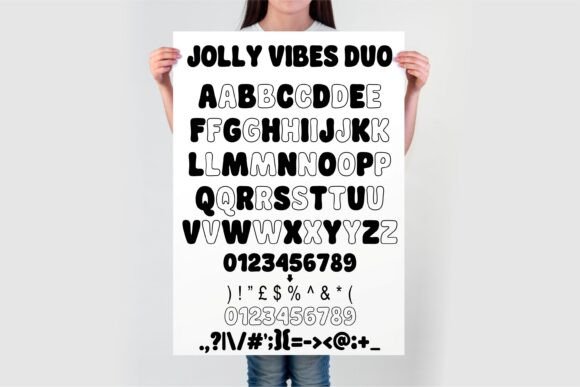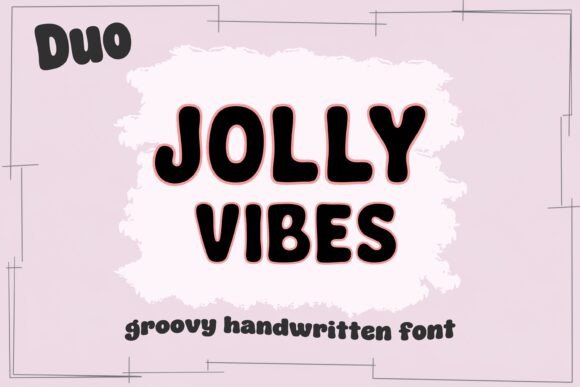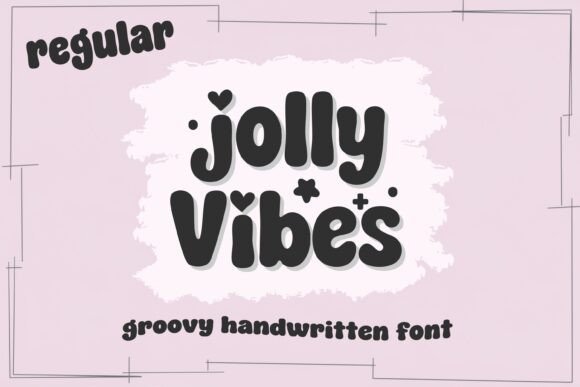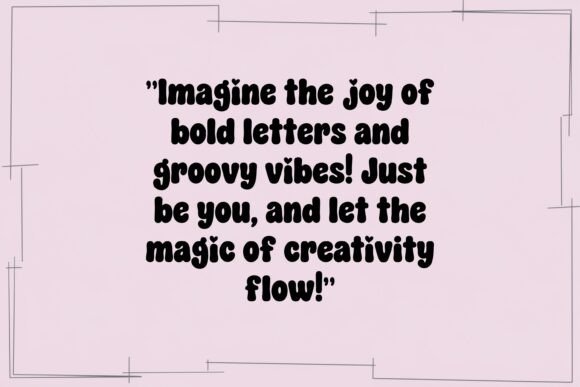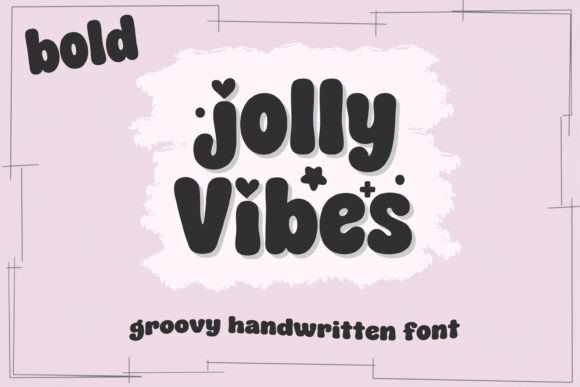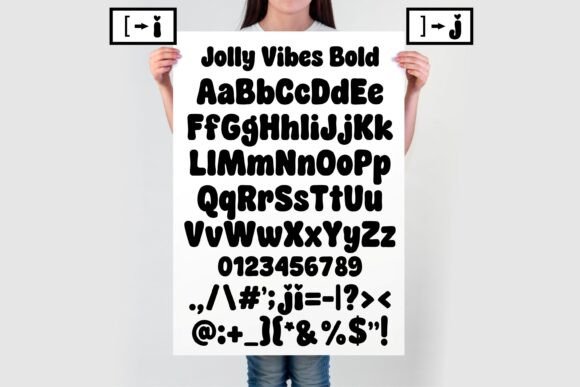
Jolly Vibes Font
Meet Jolly Vibes, the ultimate groovy retro font that’s bold, playful, and full of personality! This bubbly handwritten font is perfect for adding a quirky touch to your creative projects. With its 70s-inspired style, smooth curves, and heart-accented letters, Jolly Vibes is ideal for everything from classroom decor and Cricut crafts to Procreate projects and social media graphics.
Whether you’re creating funky t-shirt designs, stickers, planners, or invitations, this font’s bold and whimsical look will bring good vibes to every project.